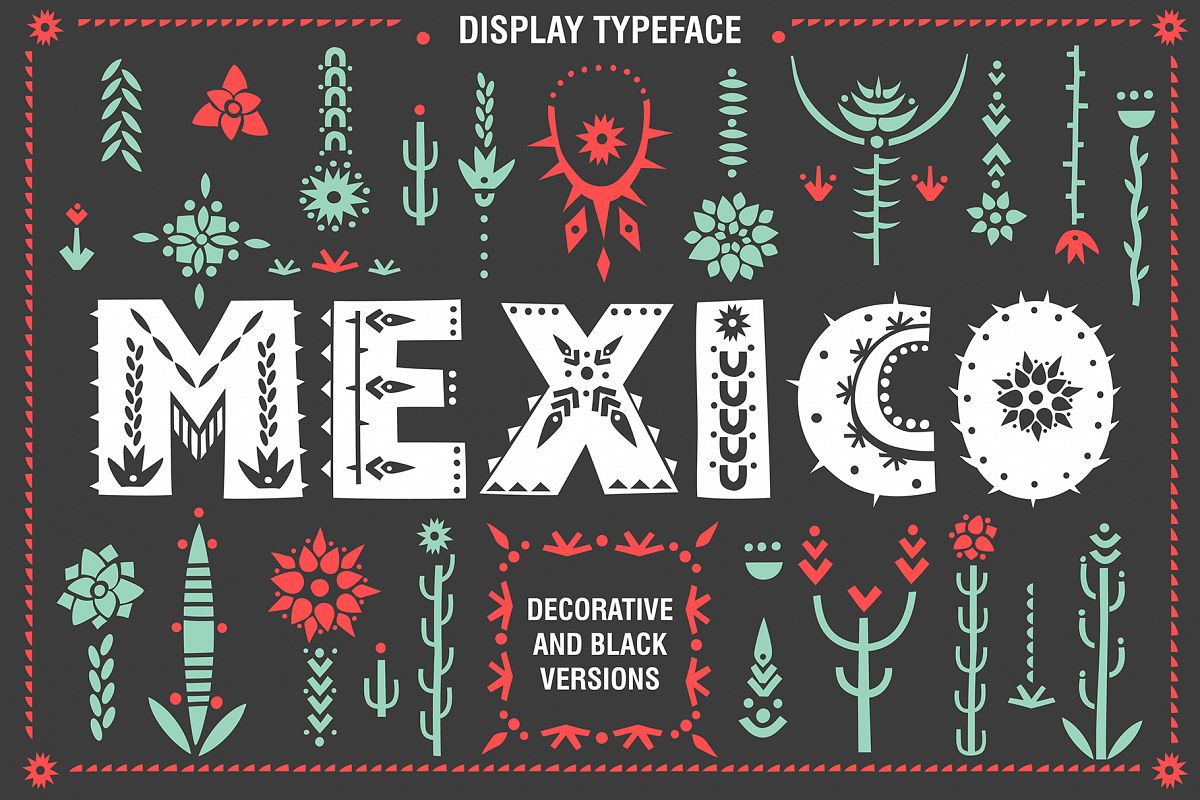
Mexico - Font Family
Hey there! Do you want to create an interesting and unusual design using only letters? If so, then I want to introduce you my Mexico font family. The letters of the display font are decorated with floral ornaments based on Mexican landscapes.
The typeface is presented in two fonts: decorative and black. You can combine two versions and get your unique design.